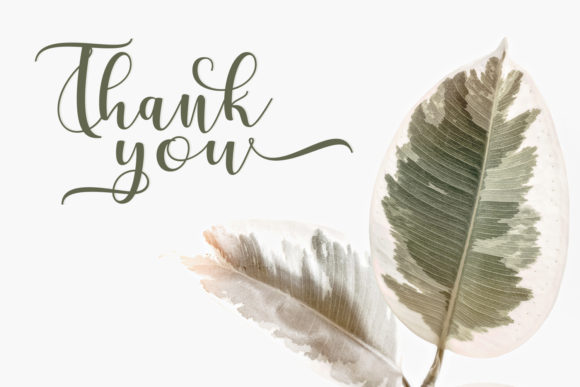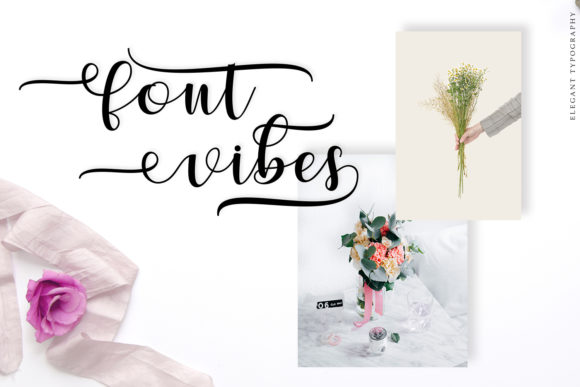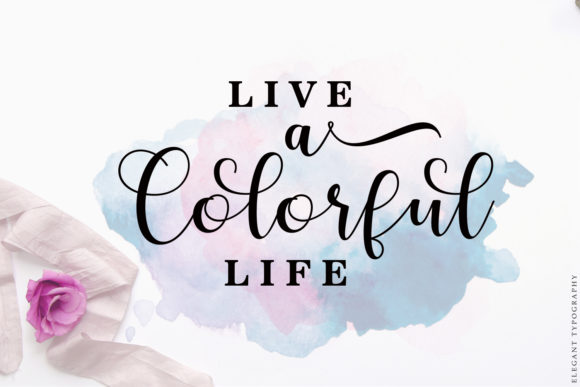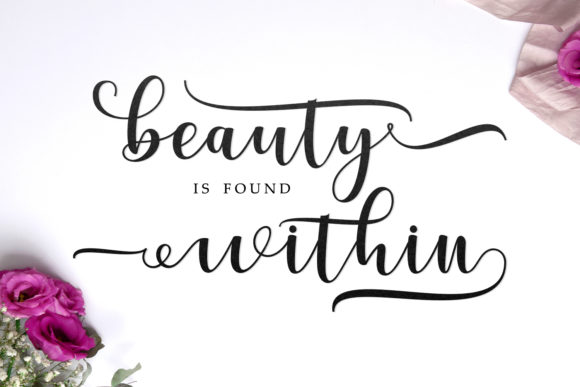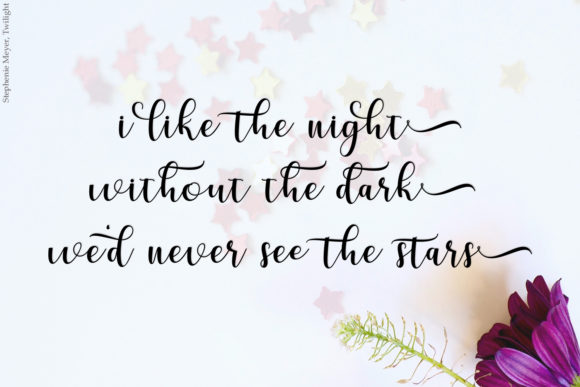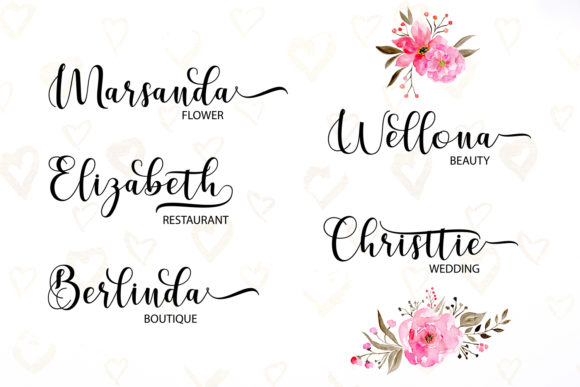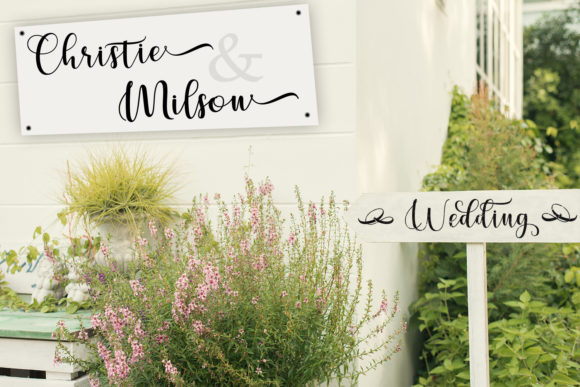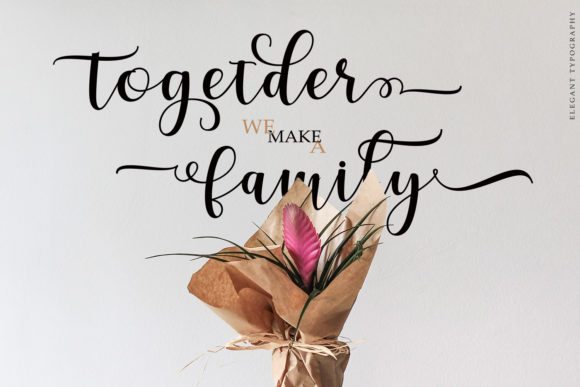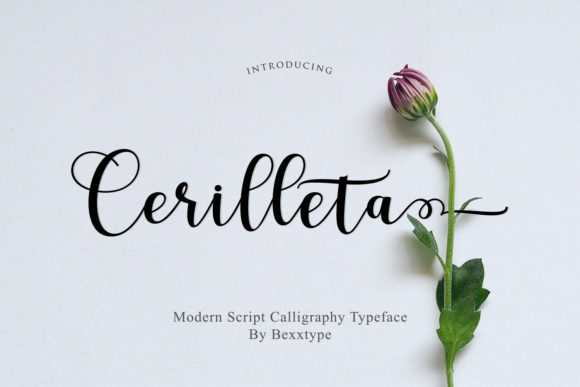
Cerilleta Script Font
About Cerilleta Script Font
The Cerilleta is an amazing calligraphy script. It’s handmade and will give any design an upscale and chic look!